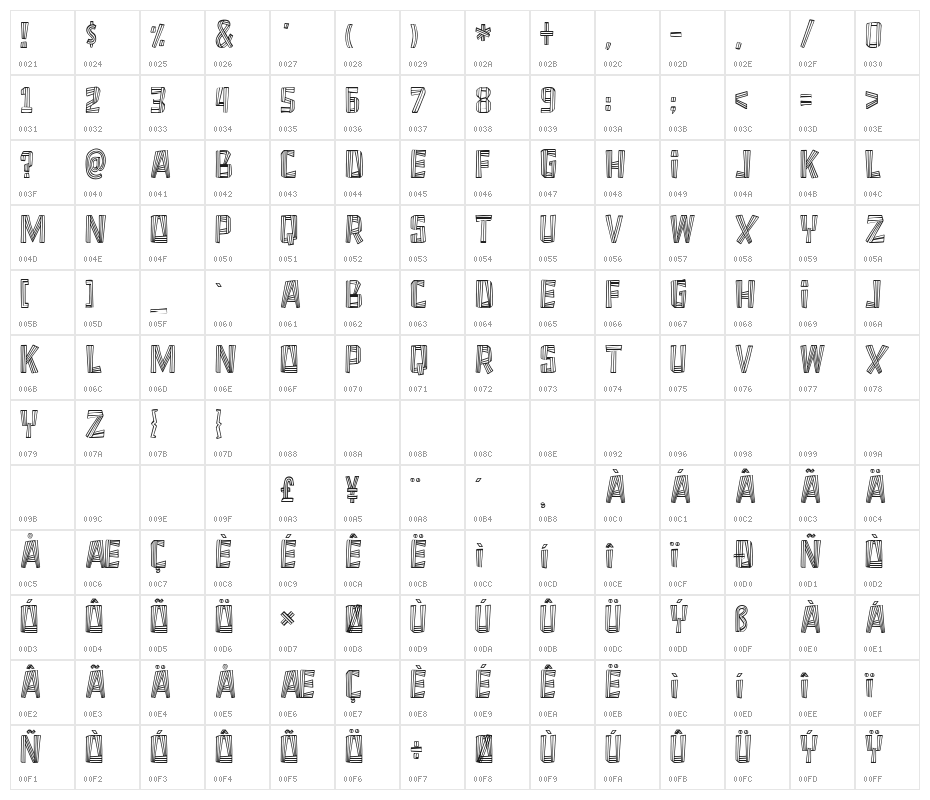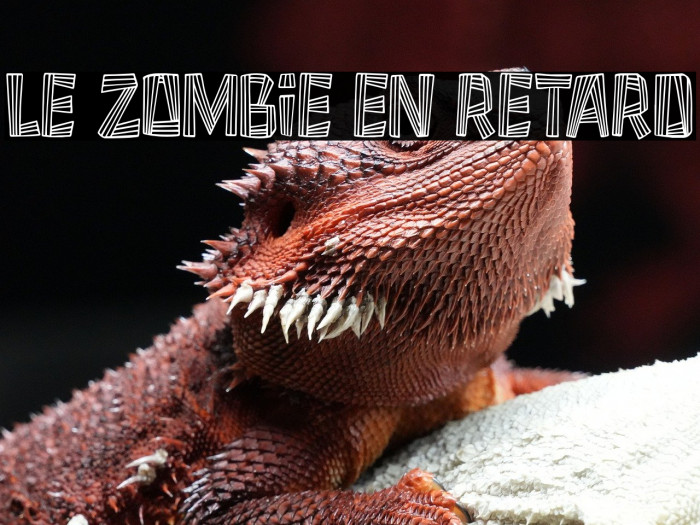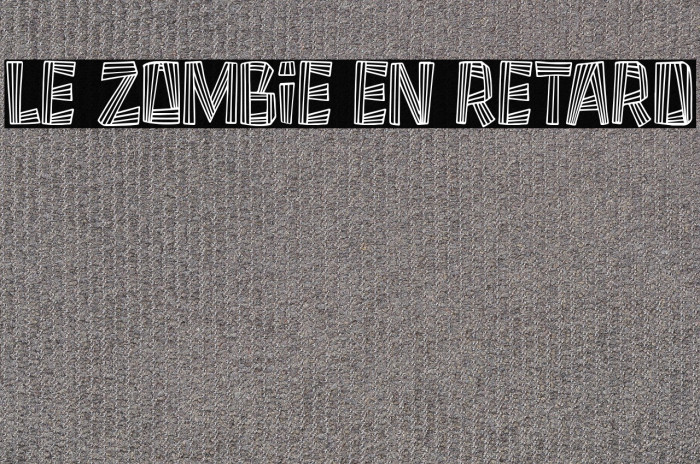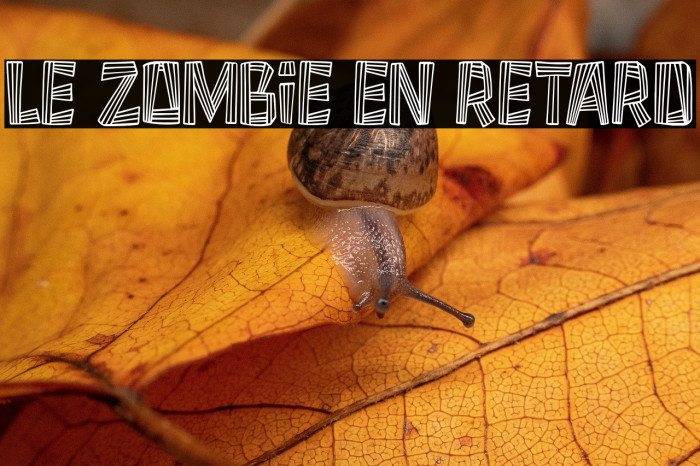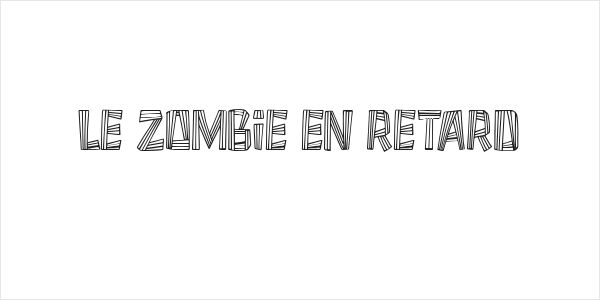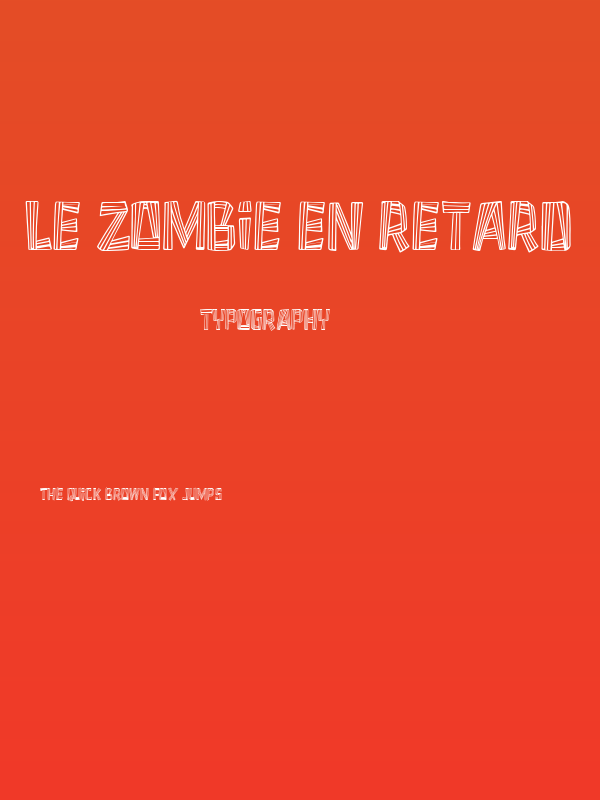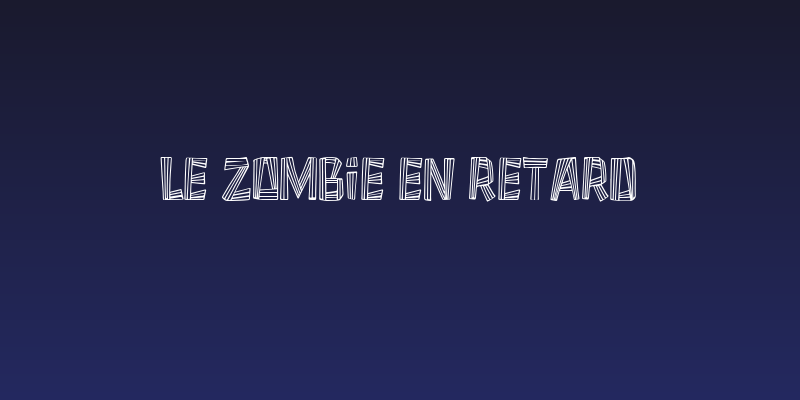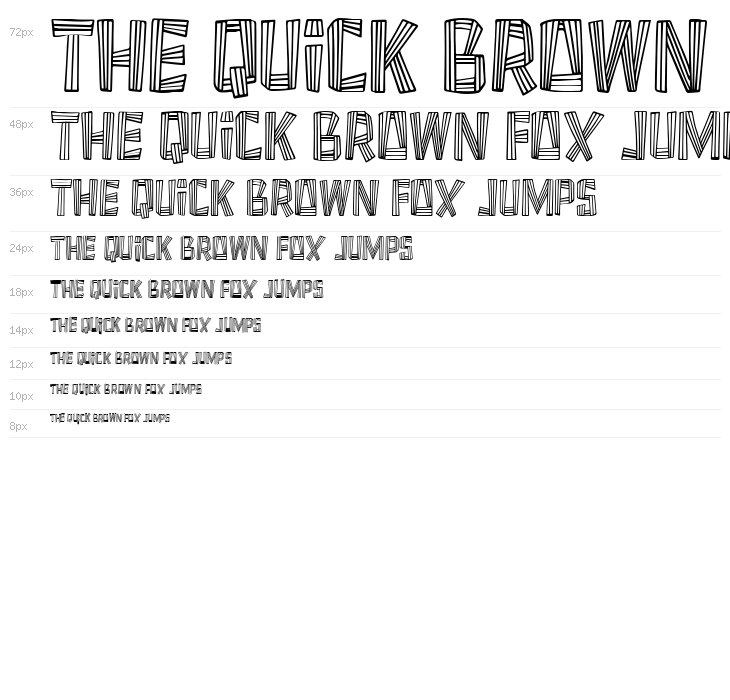
Le Zombie en Retard Font
Le Zombie en Retard Description
A playful, outlined display font with irregular, hand-drawn lines creating a three-dimensional, sketch-like effect. The characters are uppercase and have a geometric, slightly distorted appearance, giving them a whimsical and energetic vibe.
| Overall Style | Decorative, Playful, Hand-drawn |
| Use Case | Headlines, Posters, Logos, Creative Projects |
| Proposed Projects | Posters, comic titles, party invitations, children's books, creative branding, event flyers. |